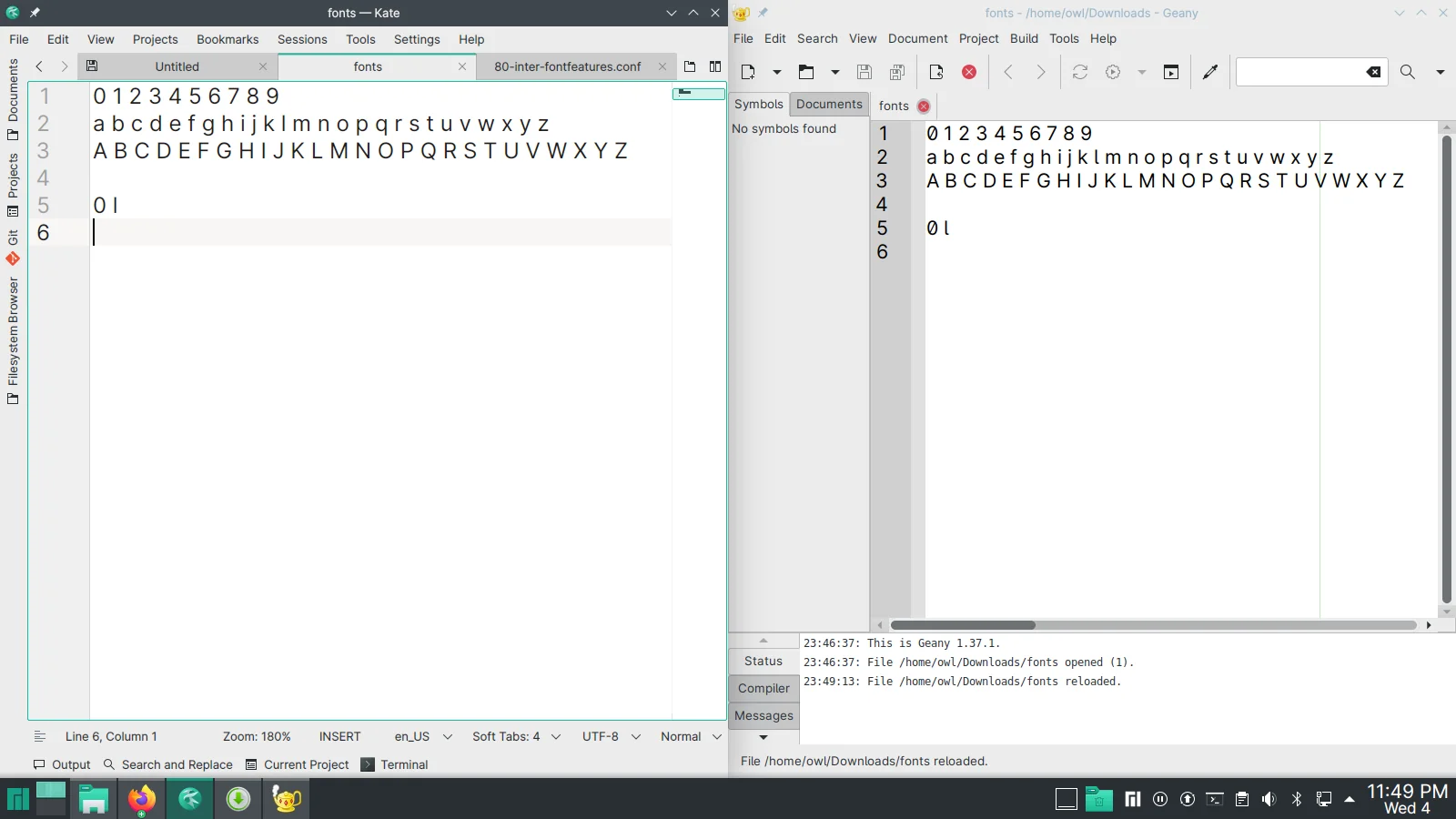
Recently QT 6.6 was released with support for opentype font features. Anybody who is unaware about what it is can play around with it in Inter font family website to get a general idea. Currently gtk support this through fontconfig. Will we get support for it in plasma 6. Thank you for reading, have a great day.
It looks like this support is limited to QtQuick only, and doesn’t include all options, not Qt as a whole. Recommend following QTBUG-78645 to see if Qt adds full support.
What does “Support for it in Plasma 6” mean? What kind of change do you expect?
Take a look at the below picture. The left window is Kate (QT) and the right one is Geany(GTK). Both are using the same font named Inter. If you look at the 5th line of both editors you can see 0 and l are looks different. This is possible because Inter support opentype font features like most modern fonts. You can check it out here in their website. You can enable such features using fontfeatures in your fontconfig. But currently QT doesn’t support it, GTK & Electron does. Hope this clear things.
As far as I understand the Qt change adds API to allow application developers to control which font features are used. That’s not quite the same as reading the features from fontconfig.
Qt generally uses fontconfig to do things, I don’t know to what extend it reads/respects those features.
It’s also somewhat unrelated to Plasma 6. What matters is the Qt version the application uses, which isn’t necessarily the same that Plasma uses